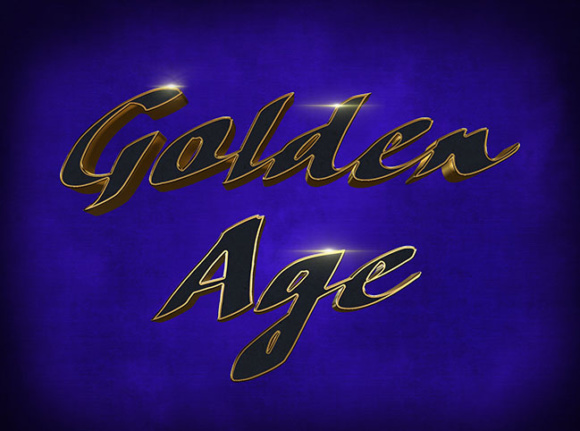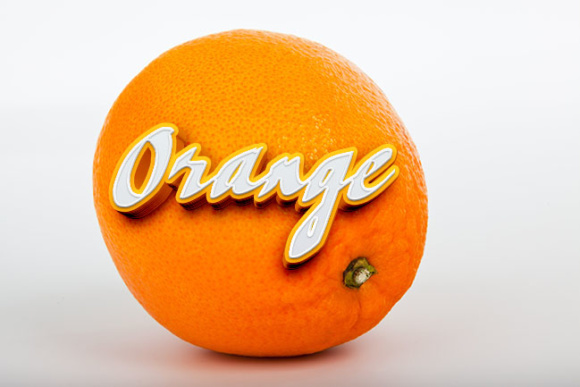
The Aja Font: A Clean and Striking Script for Your Creative Projects
I’ll never forget the time I was working on a logo design project for a client who wanted a font that was both elegant and modern. I spent hours scouring the internet for the perfect script font, but nothing seemed quite right. That was until I stumbled upon the Aja font. Its clean lines and striking appearance immediately caught my eye, and I knew I had found the perfect fit for my client’s project.
An Honest Review of Aja Font
What I Love About Aja Font
- ✨ Clean and modern design: The Aja font has a sleek and contemporary look that’s perfect for headers and logos.
- ✅ Ease of readability: The font is highly legible, even at smaller sizes, making it versatile for various design applications.
- 💡 OpenType features: Aja font comes with a range of OpenType features, including glyphs and stylistic alternates, which allow for creative experimentation and customization.
While the Aja font is an excellent choice for many design projects, there are a few things to keep in mind:
- 🤔 Limited use in body text: Due to its script nature, Aja font may not be the best choice for lengthy body text. It’s best suited for headers, titles, and short paragraphs.
- ⚠️ Kerning issues: As with any font, kerning can be a issue, especially when using Aja font in combination with other fonts. Be sure to adjust the kerning manually for optimal results.
The Story Behind Aja Font
The Aja font was designed by a team of typographers who aimed to create a clean and modern script font that would be perfect for headers and logos. Inspired by the simplicity and elegance of sans-serif fonts, the Aja font combines the best of both worlds: the elegance of script fonts and the clarity of sans-serif fonts.
| Font Name | Aja Font |
Q: What is the Aja font best used for?
A: The Aja font is ideal for headers, logos, and titles. Its clean and modern design makes it perfect for a wide range of design applications, from branding and advertising to packaging and editorial design.
Q: Can I use Aja font for body text?
A: While Aja font is highly legible, it’s not recommended for lengthy body text. Its script nature can make it difficult to read in large blocks, so it’s best used for headings and short paragraphs.
Q: Does Aja font come with OpenType features?
A: Yes, Aja font comes with a range of OpenType features, including glyphs and stylistic alternates. These features allow for creative experimentation and customization, making it a versatile font for designers.
Q: Is Aja font suitable for digital use?
A: Absolutely! Aja font is optimized for digital use and looks great on screens. Its clean lines and modern design make it perfect for website headers, social media graphics, and digital advertising.